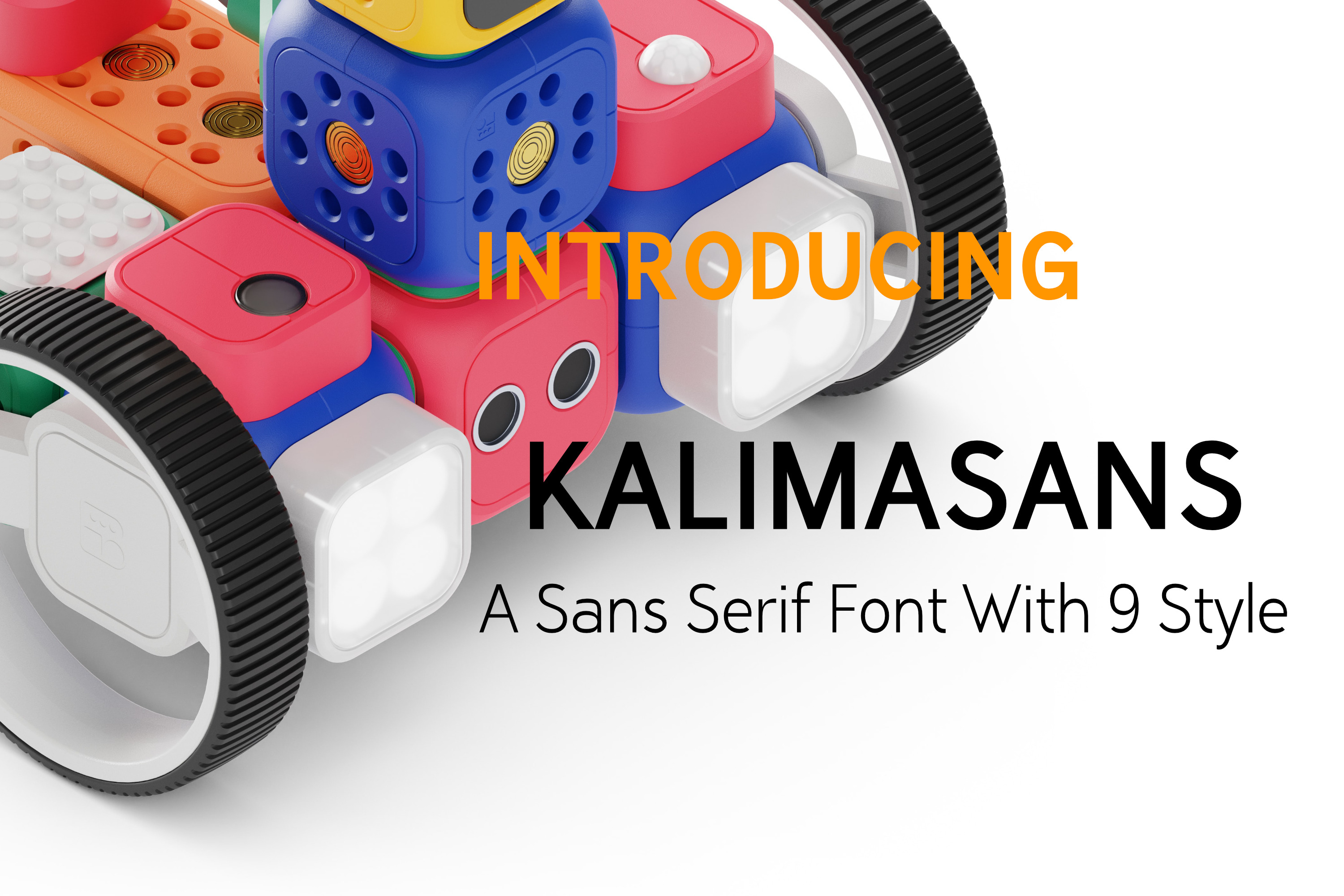
Kalimasans - Sans Serif Font 9 Style
Kalimasans is a Sans Serif font. This Sans Serif font has 9 styles, ranging from THIN to BLACK. With these 9 styles, it is very powerful to support various projects, including for books, magazines, pamphlets, web design and other purposes, even for marketing and brochures. This Kalimasans Sans Serif Font style variation has 9 styles that will really support the projects that are being made.